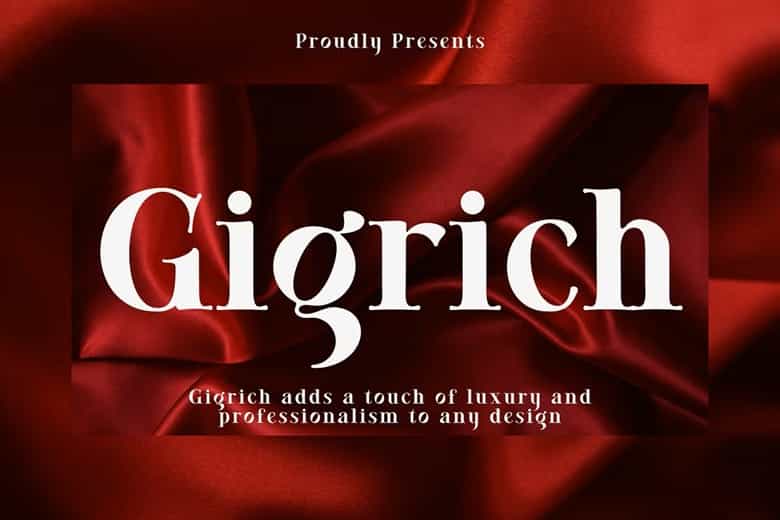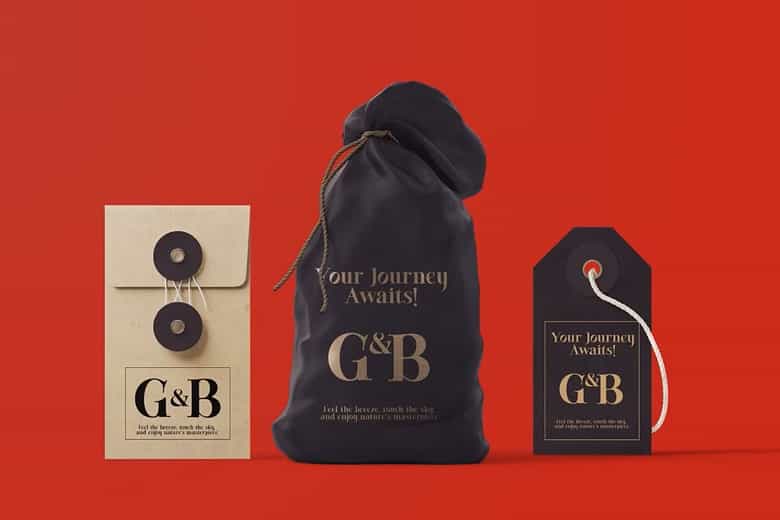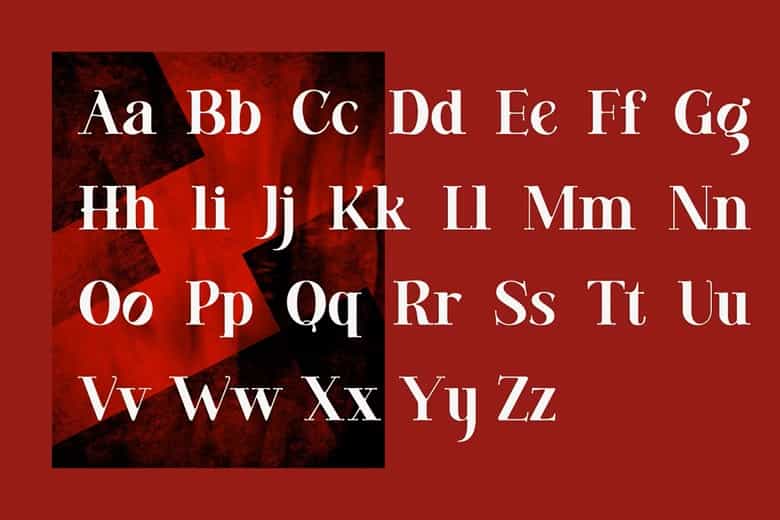
Gigrich is a serif typeface that offers elegance and timeless sophistication with modern flavor. Its signature feature is the soft, rounded edges which make its letters look soft yet certain. Gigrich is perfect for anything from logos to magazine advertisements, invitation designs, branding and all sorts of creative projects that need to deliver a refined look with a subtle warmth and approachable feel to them.